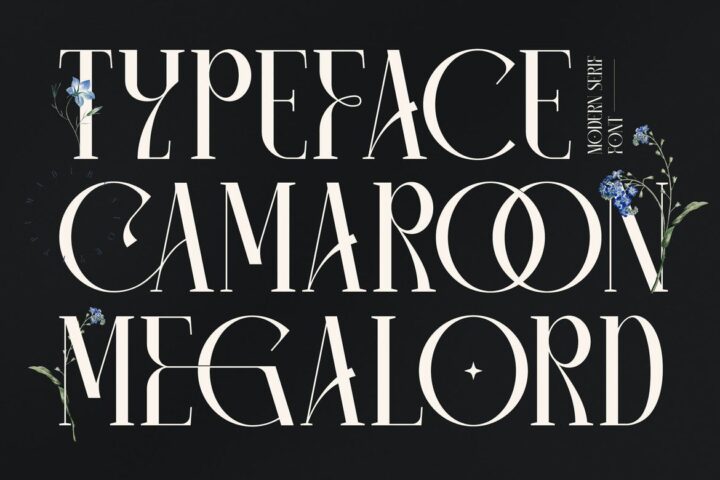
Camaroon Megalord Serif Font
Hi ladies & gentlemen, this is one of our fonts suitable to complement your digital and printed creative products. This font is perfect for posters, social media posts, branding, personal projects, etc.